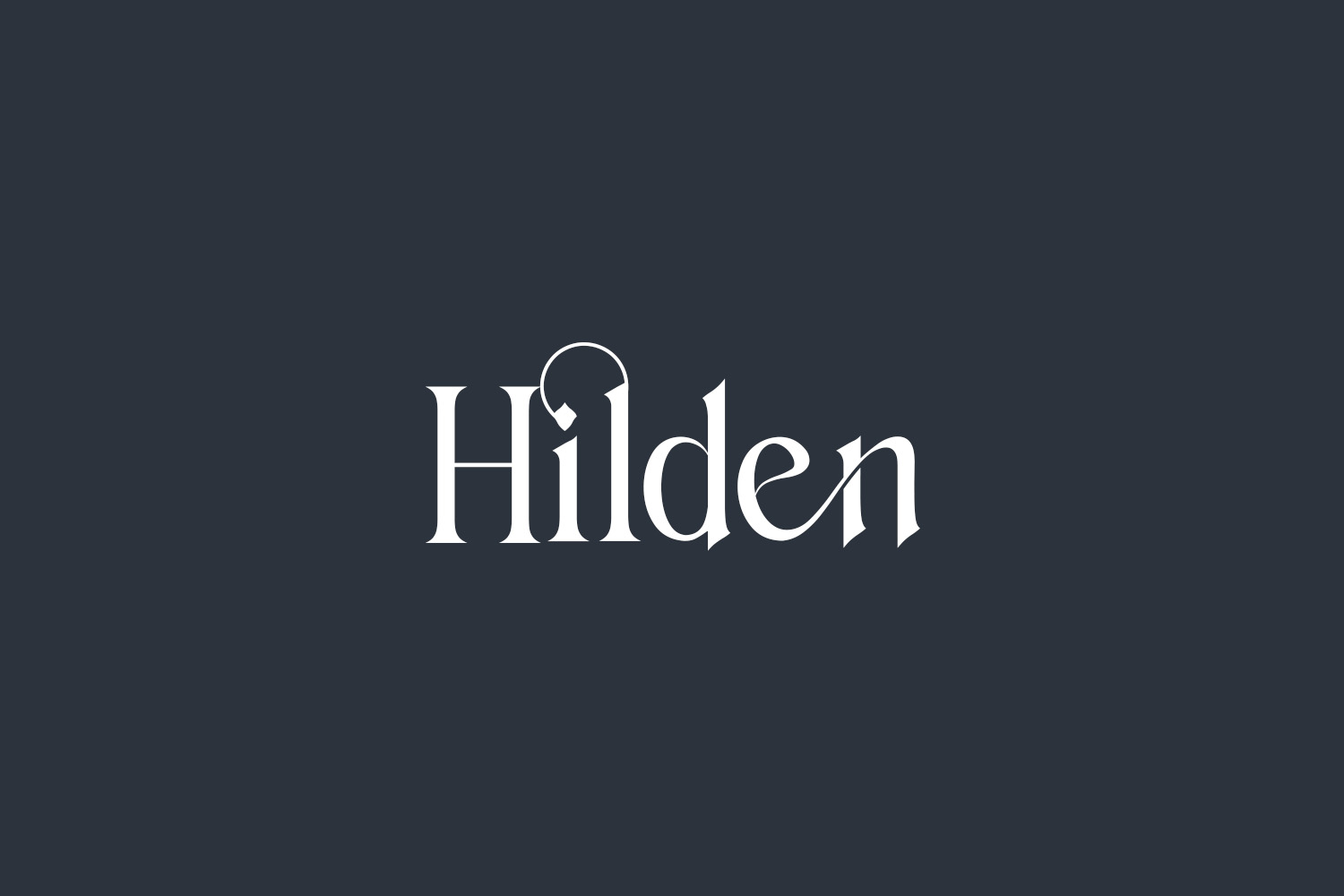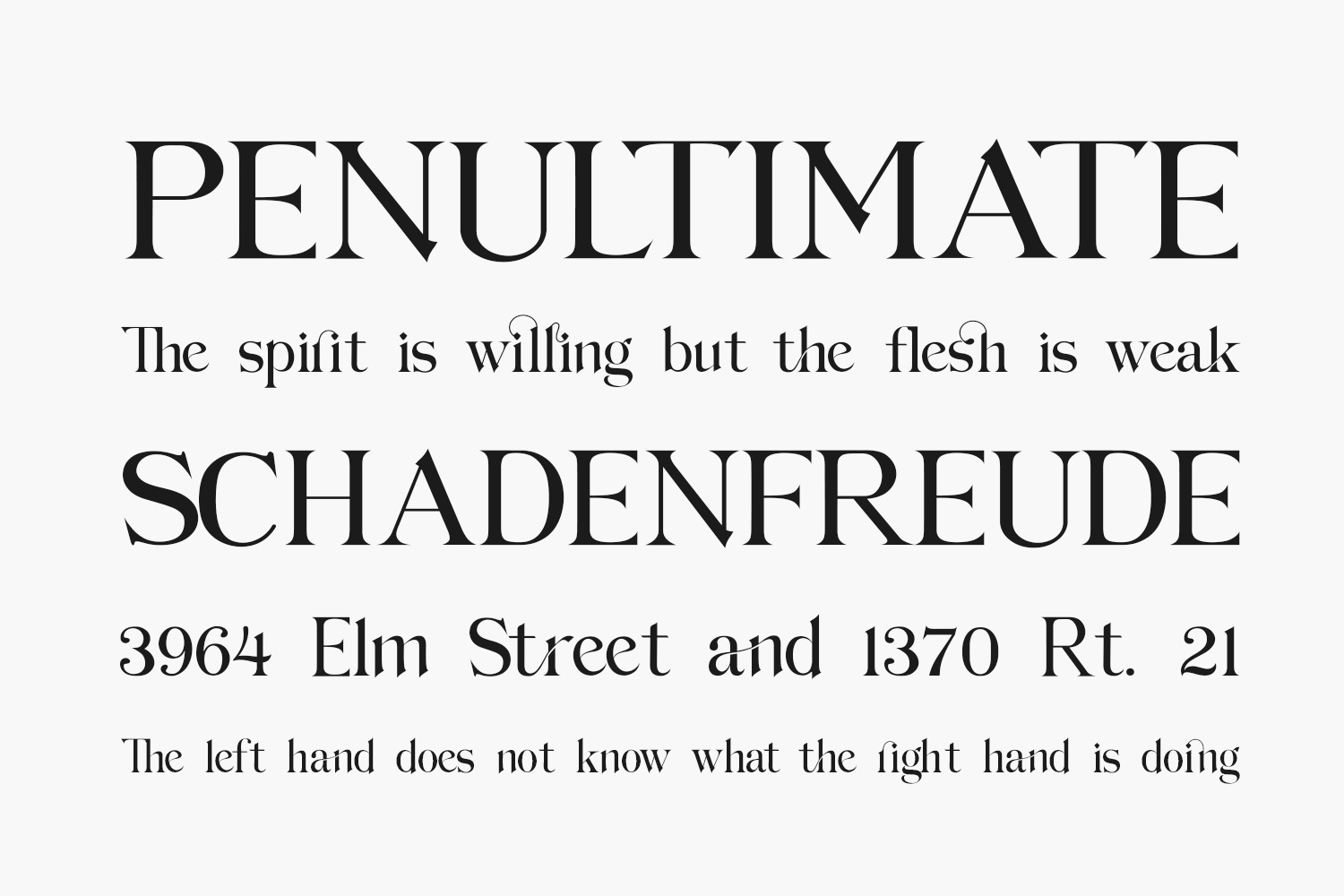
Hilden Free Font is a stylish and elegant serif font. It has a refined and modern look. Hilden Free Font was designed by Saiful Fahri and is free for personal use only. Please purchase the full version for commercial use.
Designed by Saiful Fahri